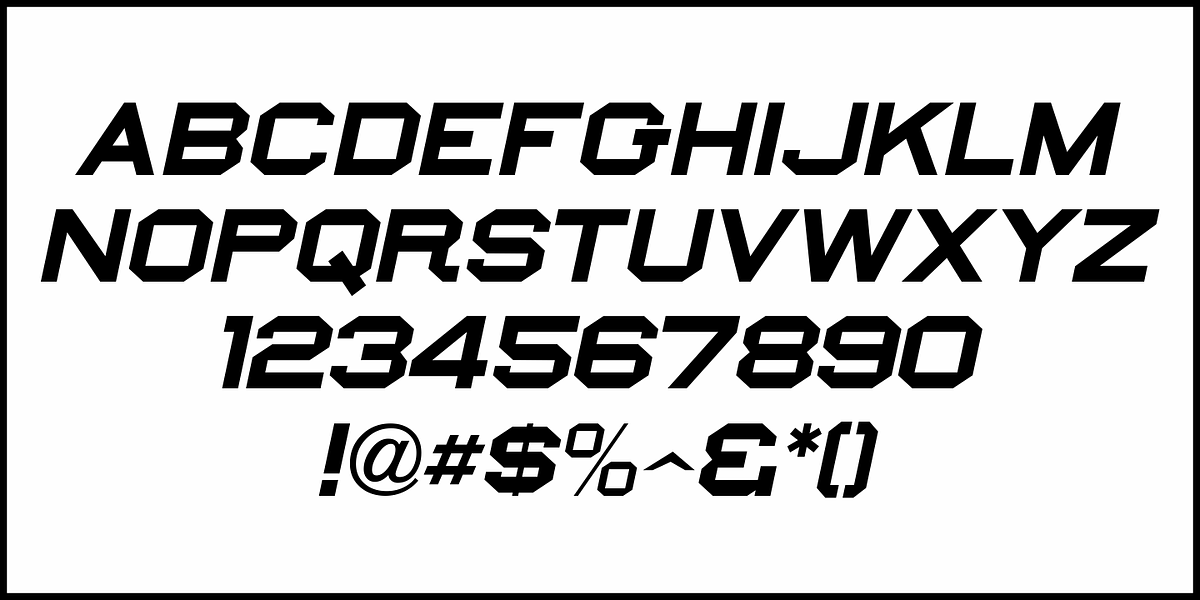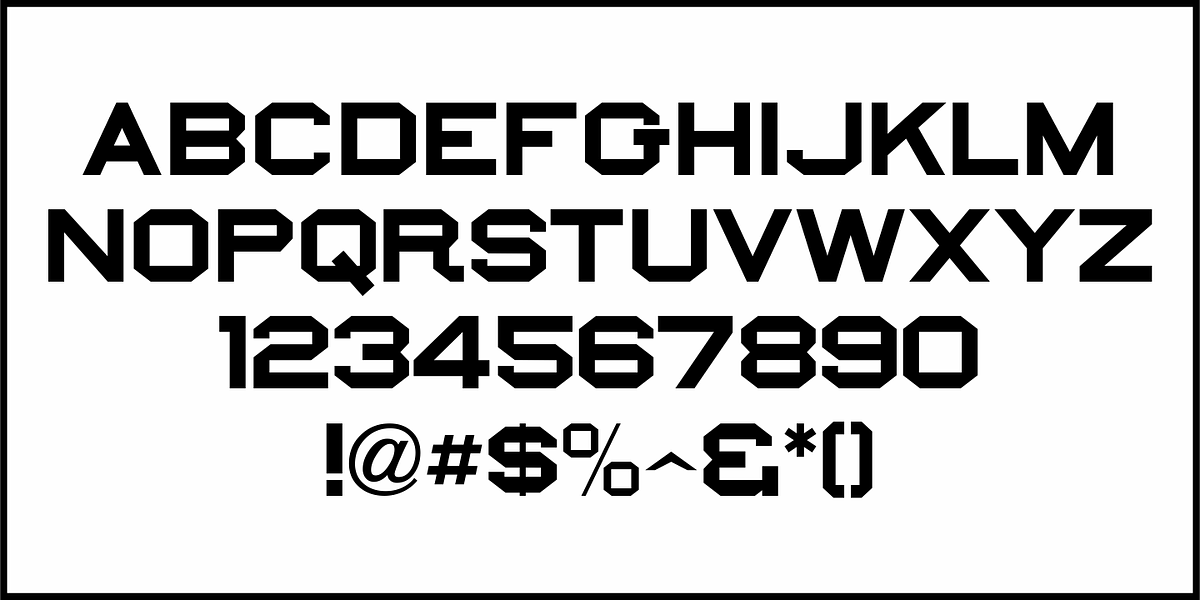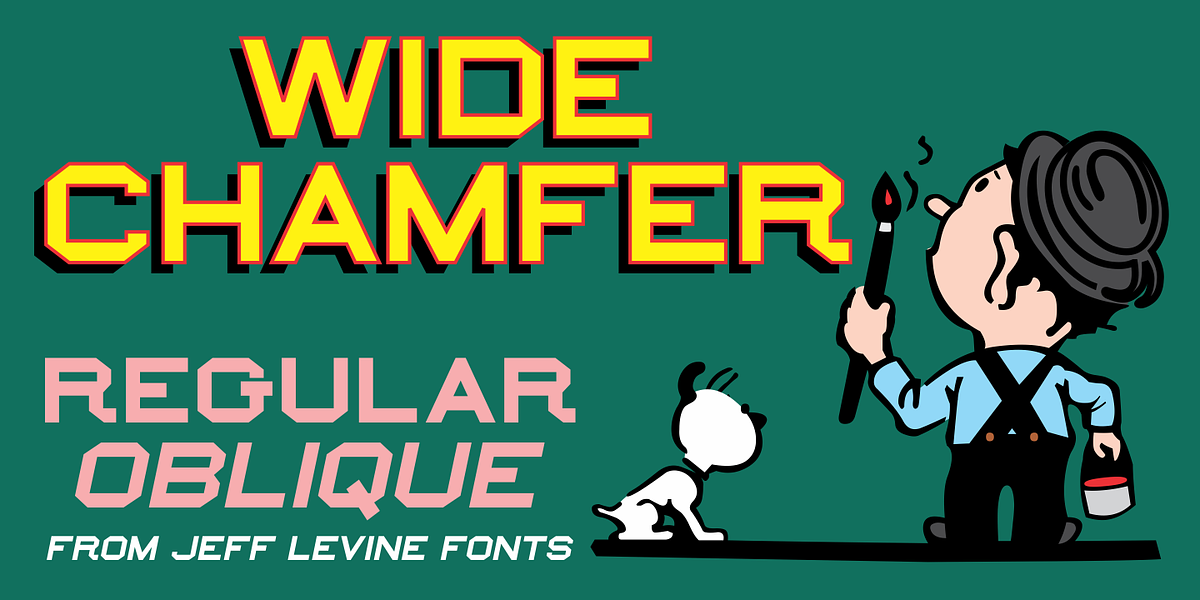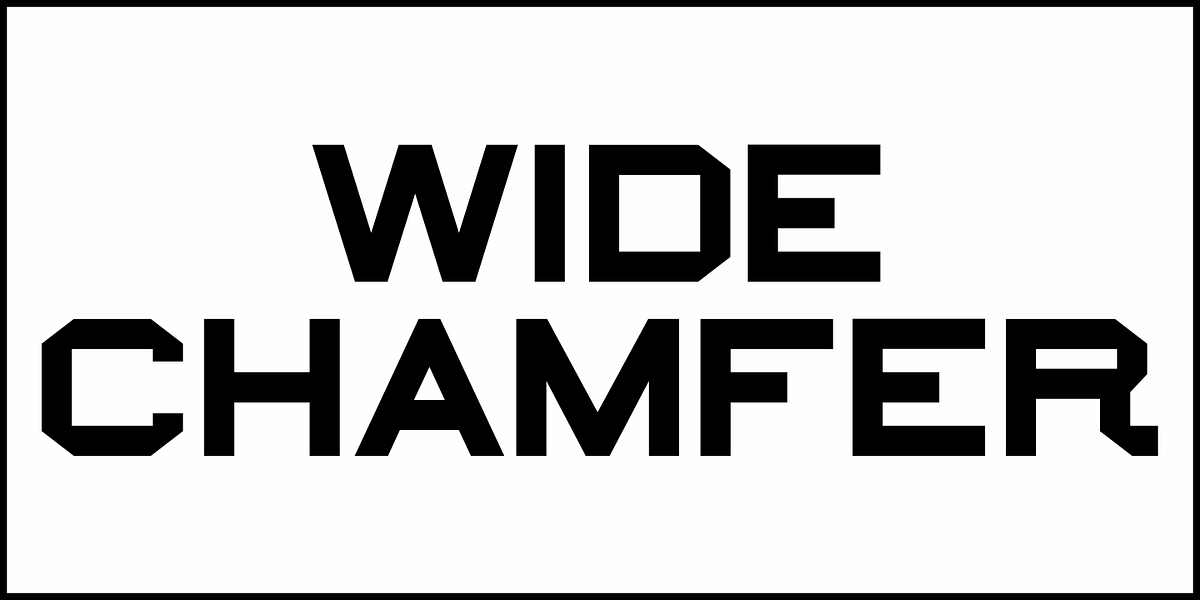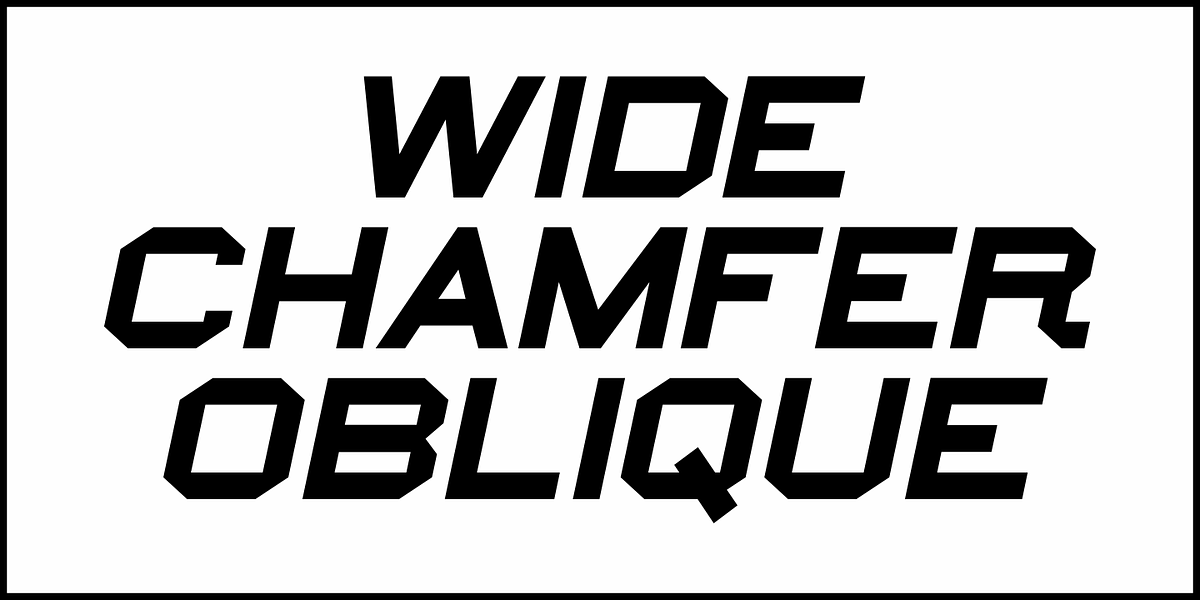
Wide Chamfer JNL
Inside the pages of an untitled sign painting textbook (circa 1902) was an example of the classic chamfered sans serif alphabets used by tradesmen of the time.
This version was wider than most, and perfect for a digital version called Wide Chamfer JNL, which is available in both regular and oblique versions.